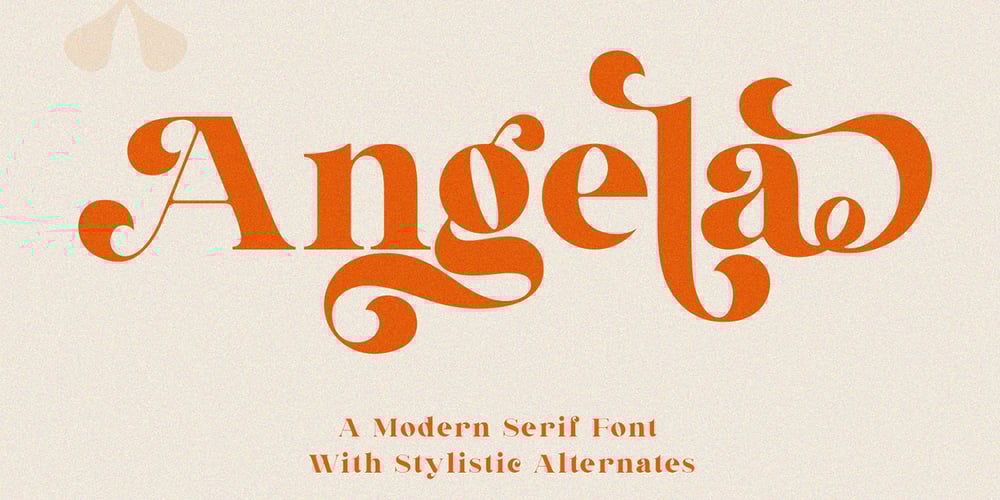
Angela Font Family was designed by Saiful Anwar and published by Sealoung. Angela contains 1 styles and family package options. Angela is a modern, bold and highly detailed serif font. This font is PUA encoded which means you can access all of the amazing glyphs and ligatures with ease!Add it confidently to your favorite creations and let yourself be amazed by the outcome generated.